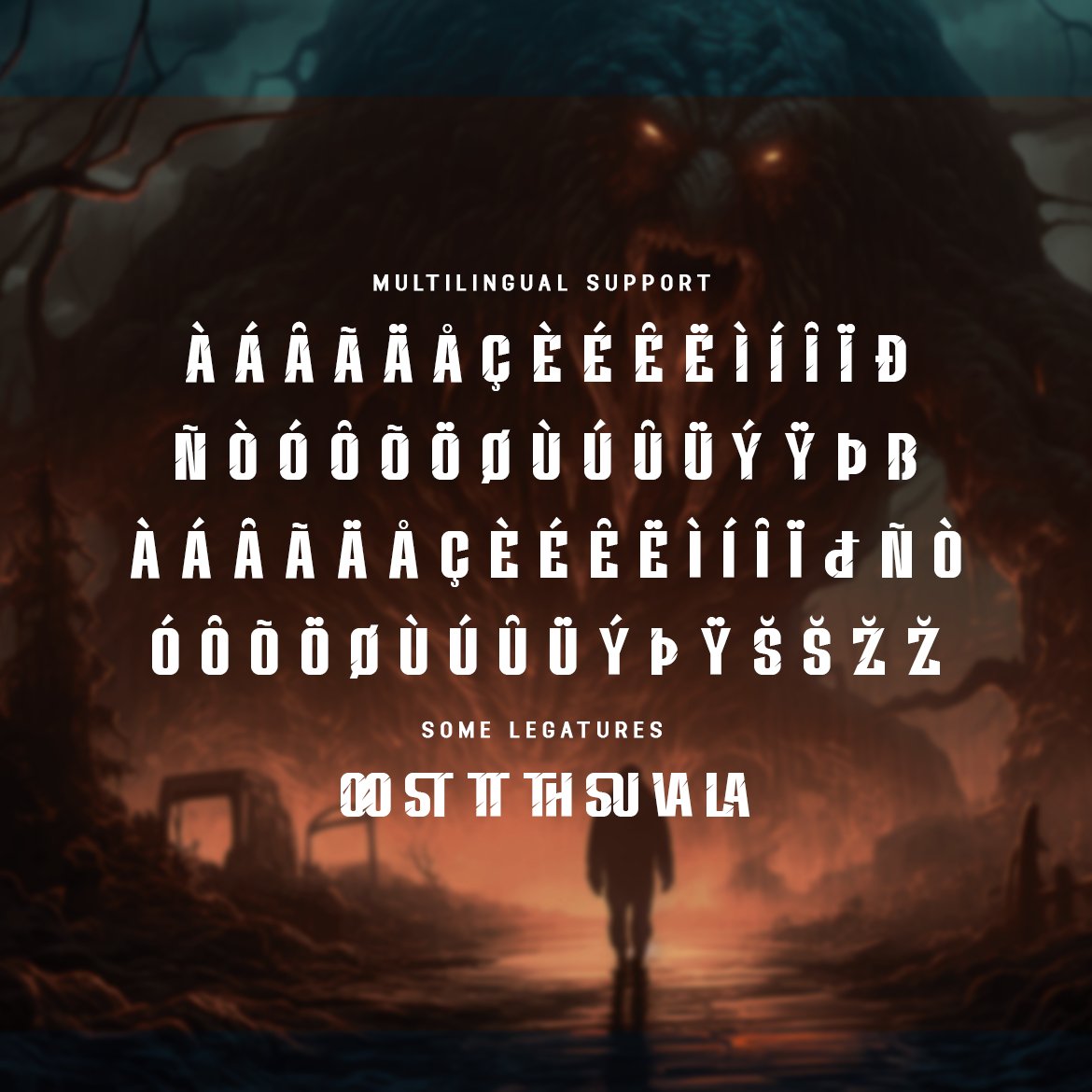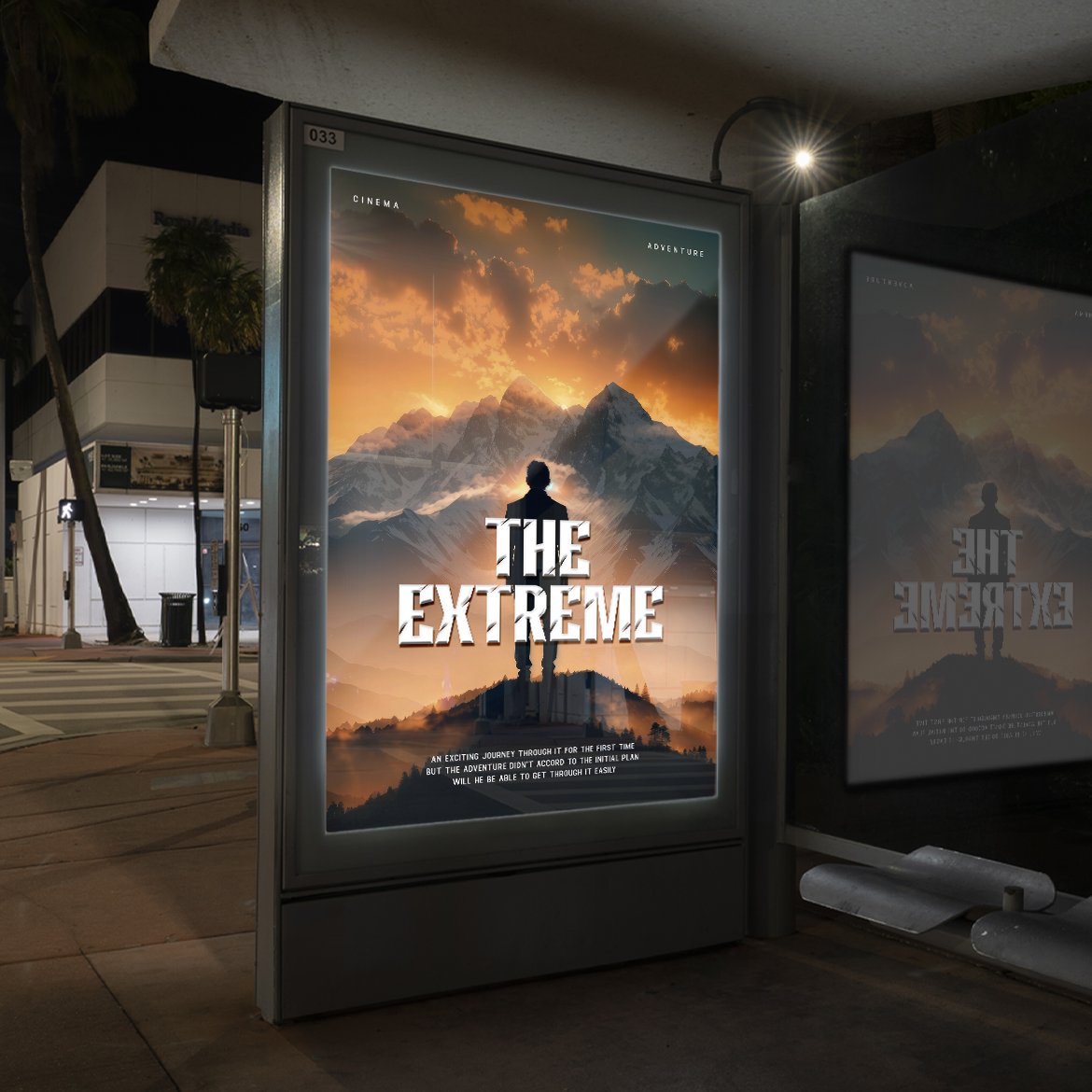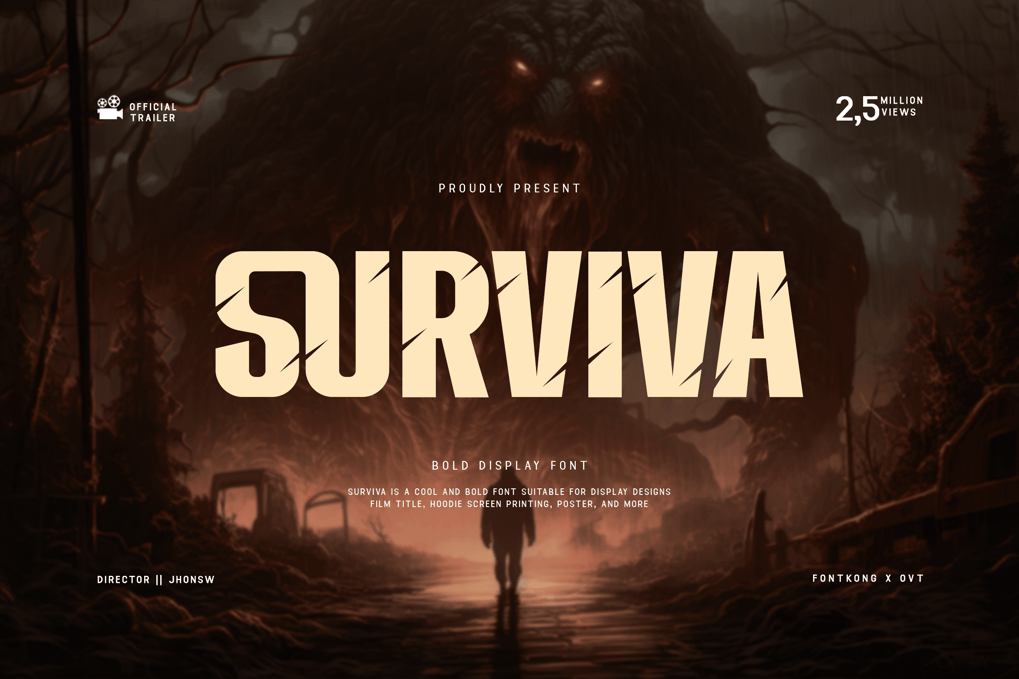
Surviva – Bold Display Font
Crafted with precision and style, Surviva is perfect for headlines, posters, logos, and any design project that demands bold typography. Its robust character set includes uppercase letters, numbers, and punctuation marks, offering versatility and flexibility for all your creative needs.